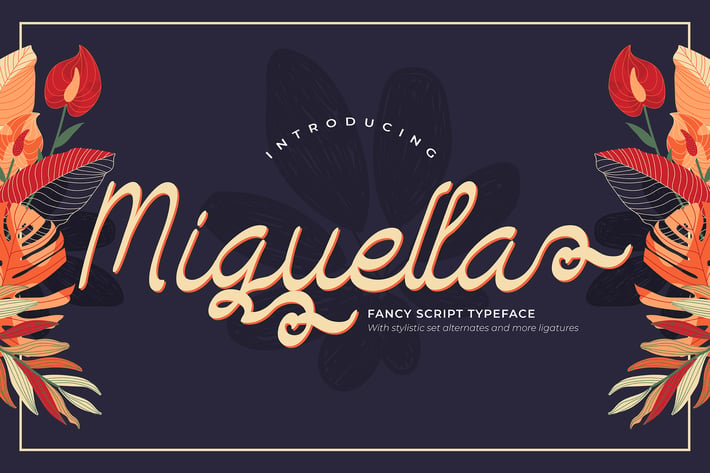
Miguella | Fancy Script Typeface
Miguella | Fancy Script Typeface with a calligraphy style, So beautiful on invitation like greeting cards, branding materials, business cards, quotes, posters, and more!